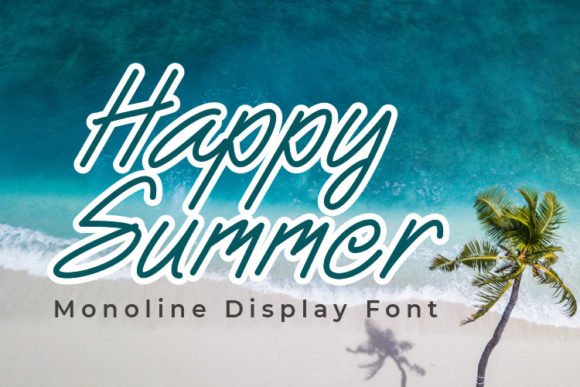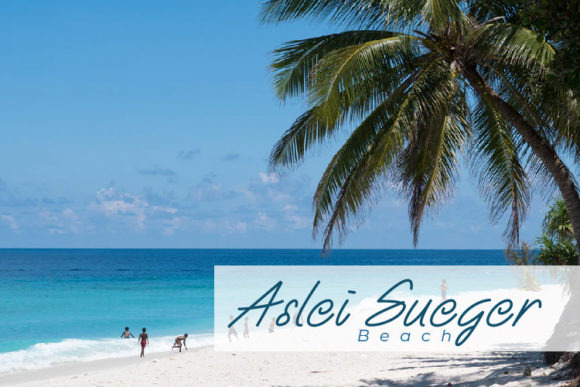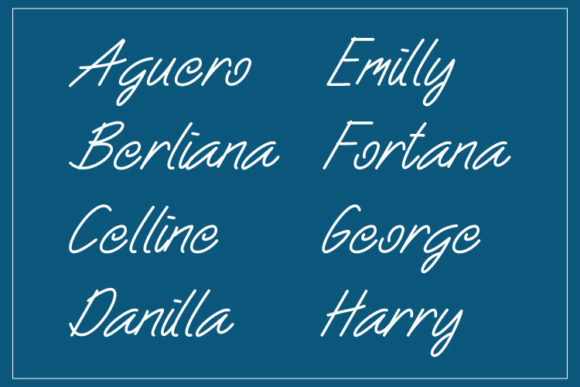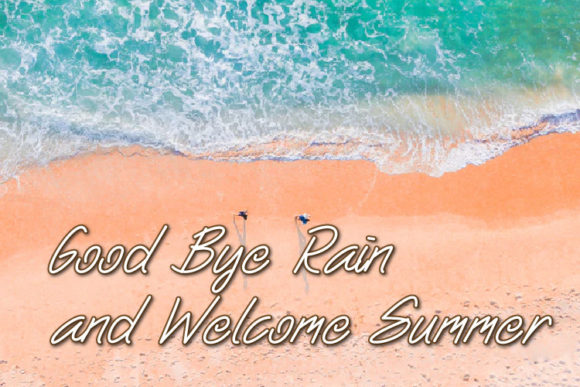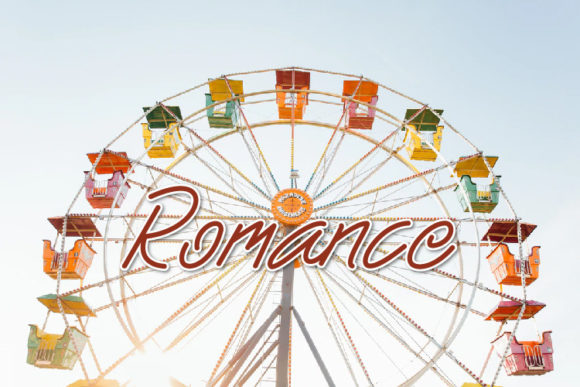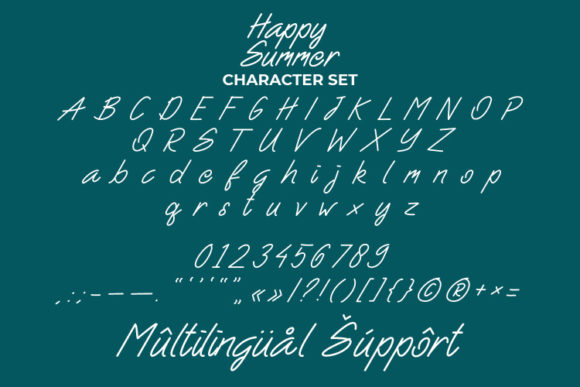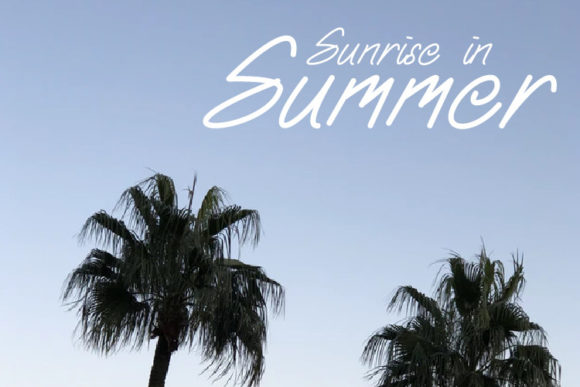
Unlock the Magic of Happy Summer Font
There’s nothing quite like the feeling of capturing the essence of a beautiful summer day in your design work. The warm sun on your skin, the sound of children laughing, and the vibrant colors of nature all come together to create a sense of joy and freedom. As a designer, you know that finding the perfect font can be the key to transporting your audience to that perfect summer state of mind.
Enter Happy Summer Font, a modern script font that is designed to evoke the carefree spirit of summer. With its smooth curves and stylish aesthetic, this font is perfect for fashion branding or editorial designs where a touch of elegance and sophistication is required. Whether you’re working on a project for a fashion magazine or a summer-themed campaign, Happy Summer Font is the perfect addition to bring your design to life.
By adding Happy Summer Font to your design repertoire, you’ll be able to create projects that are not only visually stunning but also evoke a sense of happiness and joy in your audience. With its versatility and readability, this font is a valuable asset for any designer looking to add a touch of summer magic to their work.
Happy Summer Font Key Features
- Font Family: Happy Summer Font is a unique, hand-drawn font designed for summer-themed projects and materials.
- Font Size: Available in 4 font sizes: Happy Summer (Regular), Happy Summer (Bold), Happy Summer (Italic), and Happy Summer (Bold Italic).
- Resolution: Designed to be crisp and clear at high resolutions (up to 300 DPI) for use in print materials.
- Unique Characteristics: Features a playful, handwritten style with exaggerated letterforms and irregularities, perfect for adding a carefree touch to summer-themed projects.
- Character Set: Includes a wide range of characters, including uppercase and lowercase letters, numbers, and punctuation marks.
Designer Review: Happy Summer Font
I recently had the chance to play around with the Happy Summer Font, and I must say it’s a mixed bag. ✨ Here are some things that work well:
- Unique Character: The font has a distinct, playful personality that’s perfect for summer-themed projects.
- Variety of Styles: It comes in multiple styles, from casual to formal, which is great for versatility.
- Good Legibility: The font is easy to read, even at smaller sizes, which is essential for clear communication.
- Limited Customization: While the font has multiple styles, customization options are limited, which may not be ideal for designers who like to fine-tune their fonts.
- Not Ideal for Body Text: While the font is great for headings and titles, it’s not the best choice for body text due to its playfulness and lack of legibility at larger sizes.
Overall, I’d say the Happy Summer Font is a solid choice for designers who want a unique, attention-grabbing font for summer-themed projects. However, it may not be the best fit for projects that require a more formal or professional tone.
The Happy Summer Font is perfect for summer-themed designs, such as beach invitations, summer party decorations, and outdoor advertisements.
Use it in bold and playful combinations to create a lively and festive atmosphere.
Remember to pair it with bright colors and fun graphics to get the most out of this font.